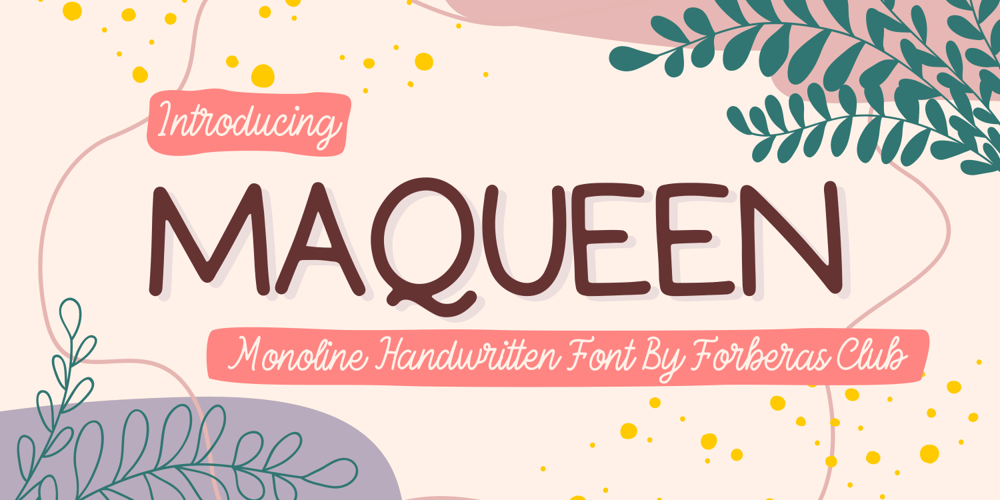
Maqueen Font Family was designed by ANGGI HERMAWAN and published by Forberas Club. Maqueen contains 1 styles and family package options. Maqueen font create with simple and clean style. You can apply this font to simple and happy design. Can be use too for cover and cartoony style.